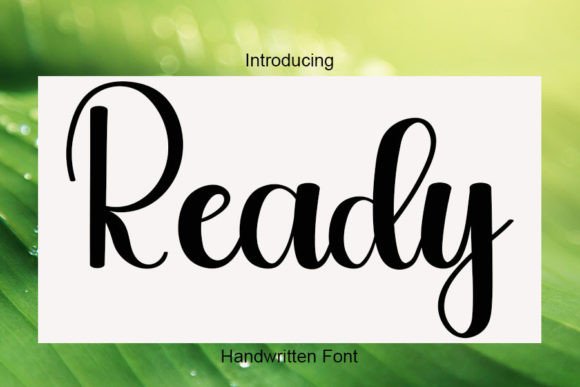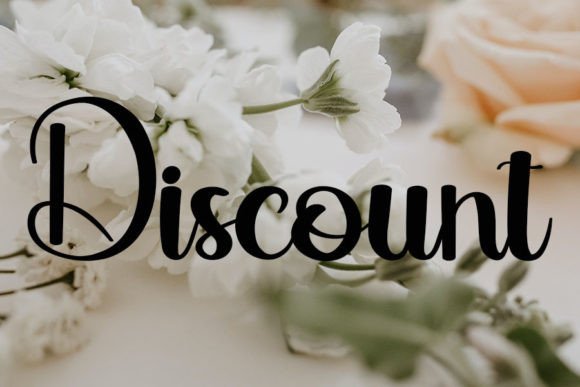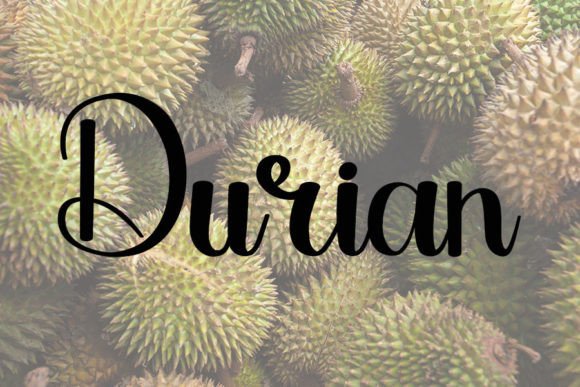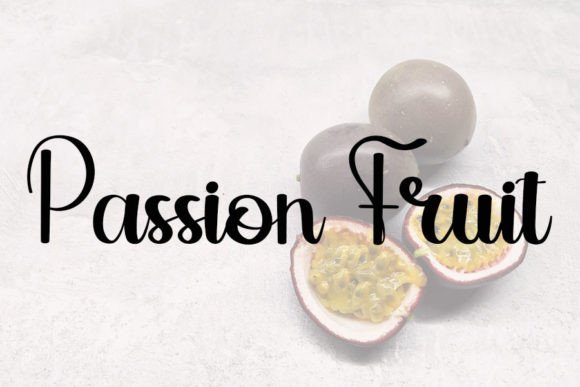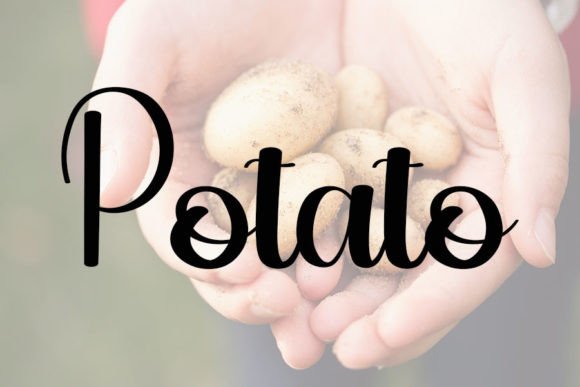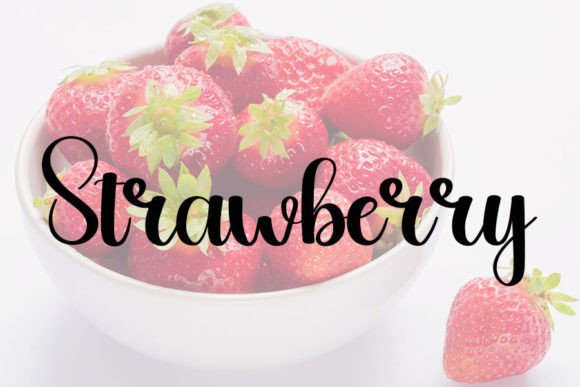
Ready Font
About Ready Handwritten Font
Ready Handwritten Font is a neat, elegant, and timeless typeface crafted to bring sophistication to your creative projects. With flowing curves, balanced proportions, and refined strokes, it combines the warmth of handwriting with the polish of modern typography. Because of its versatility, Ready Handwritten Font is perfect for invitations, logos, posters, packaging, magazines, social media, and branding materials.
A Handwritten Typeface with Elegant Charm
Handwritten fonts add character and beauty to designs, and Ready Handwritten Font excels at this. Its smooth lines and graceful forms create a natural flow that feels stylish yet approachable. In addition, its carefully designed balance ensures readability, making it suitable for both personal and professional projects.
Special moments deserve fonts that capture emotion, and Ready Handwritten Font does just that. For example, it enhances wedding invitations, thank-you cards, and menus with timeless charm. Moreover, it adds elegance to seasonal greeting cards, birthday stationery, and holiday messages, making every design unforgettable.
A Script Typeface for Branding and Packaging
Businesses and creatives can also benefit from Ready Handwritten Font in branding projects. It shines on boutique logos, product packaging, and advertising layouts. Furthermore, it adapts seamlessly to magazine covers, social media graphics, and promotional campaigns. When paired with clean sans serif fonts, it creates a polished and professional identity.
Flexible Across Print and Digital Media
Another strength of Ready HandwrittenFont is its adaptability across platforms. In print, it enriches posters, brochures, and merchandise with a sophisticated touch. Digitally, it integrates smoothly into websites, blogs, and online shops. Since it scales perfectly from small labels to large banners, it ensures clarity and consistency everywhere.